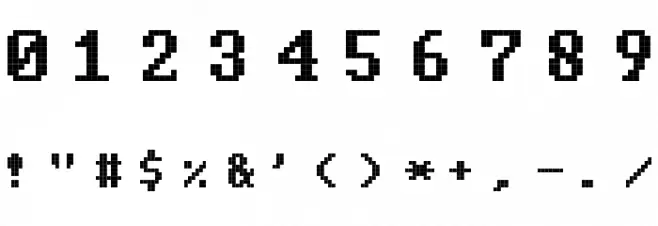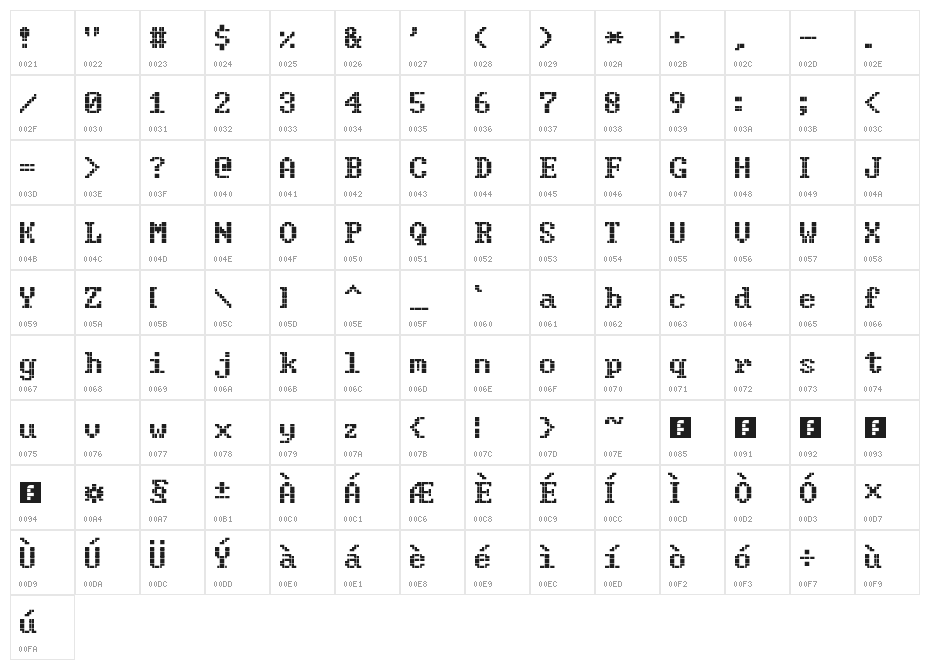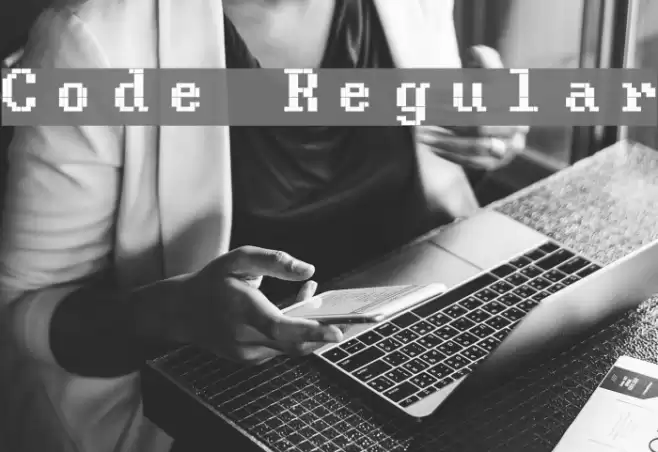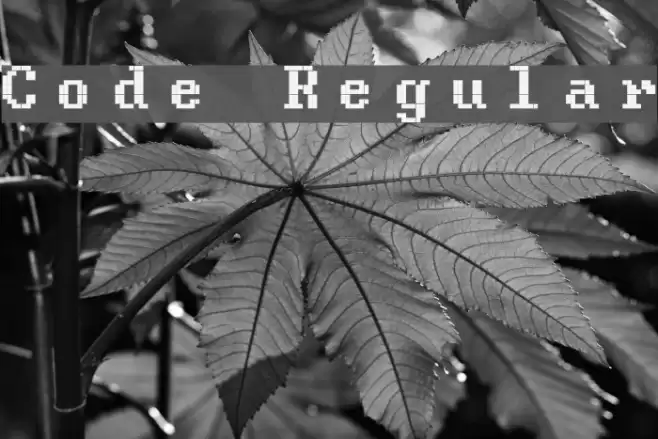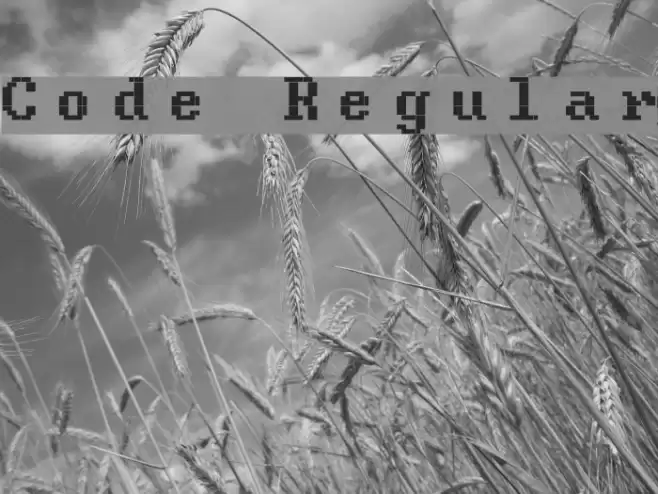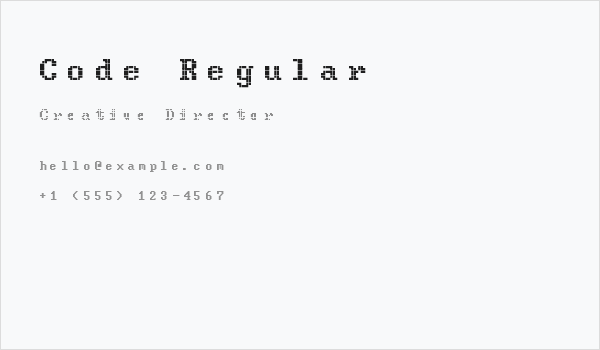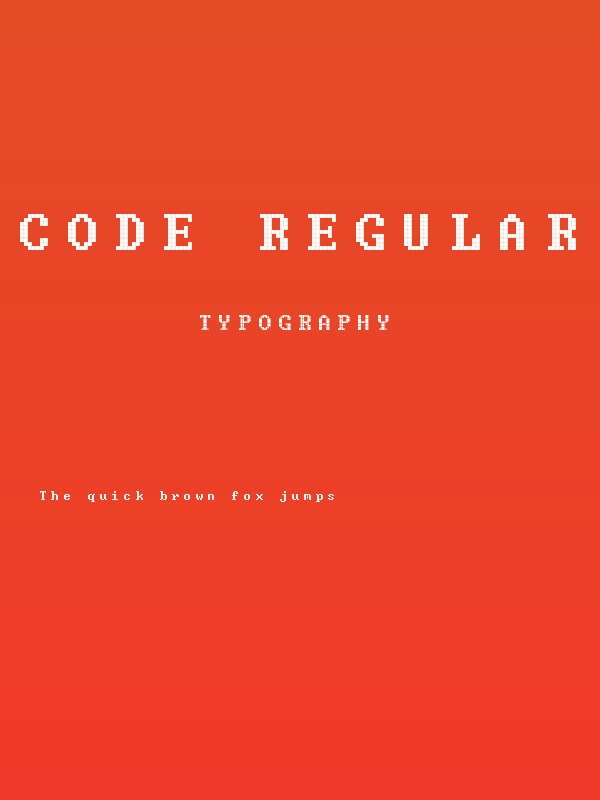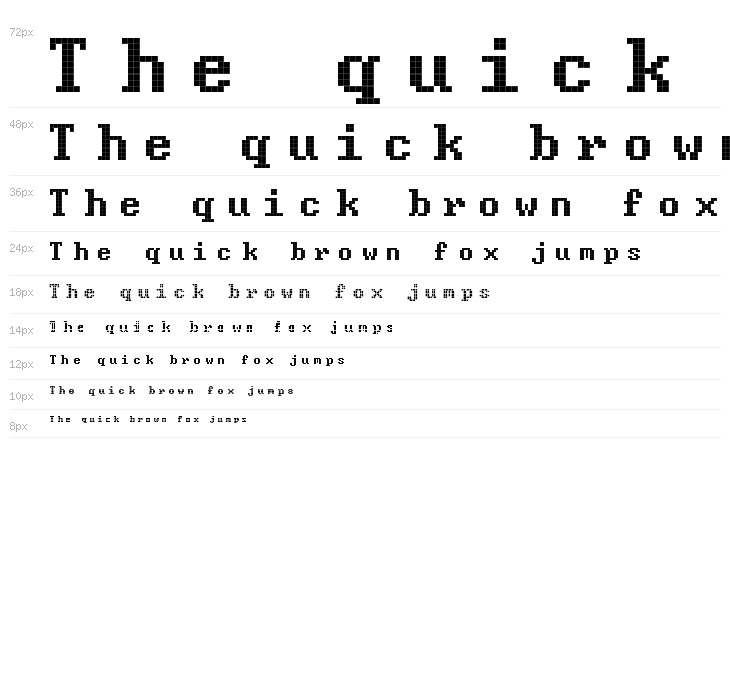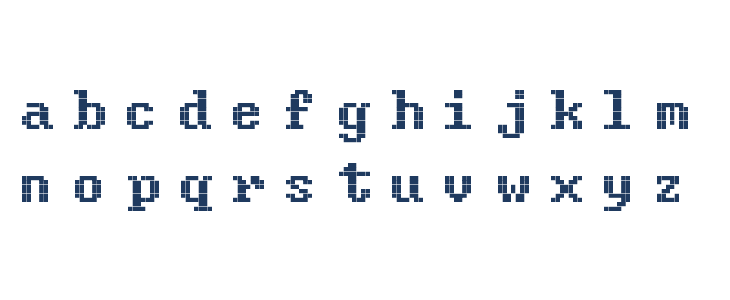
Code Regular Font
Code Regular Description
This font features a pixelated, retro aesthetic reminiscent of early computer and video game graphics. Each character is composed of distinct square blocks, giving it a digital, grid-like appearance. The uppercase letters are bold and prominent, while the lowercase letters maintain the same pixelated style but with a slightly more compact form. Numbers and special characters follow the same design principles, ensuring consistency across the font. The overall look is both nostalgic and modern, making it suitable for projects that aim to evoke a sense of vintage technology or digital art.
| Use Case | Logos, Headlines, Digital Art |
| Proposed Projects | Ideal for video game design, digital art projects, retro-themed posters, and tech-related branding. |